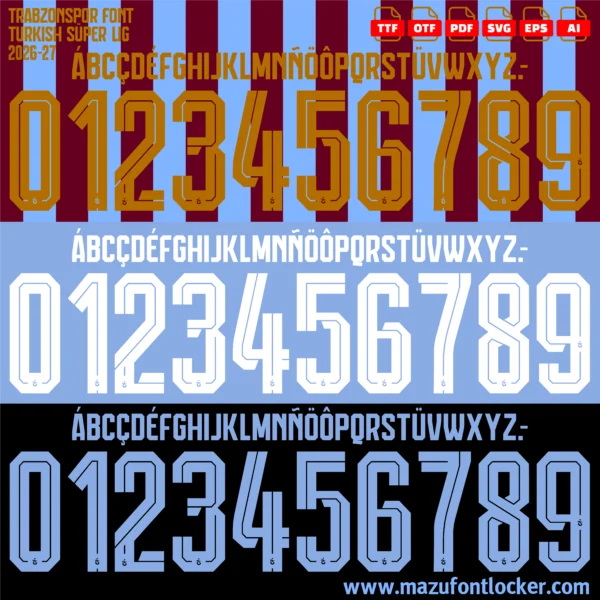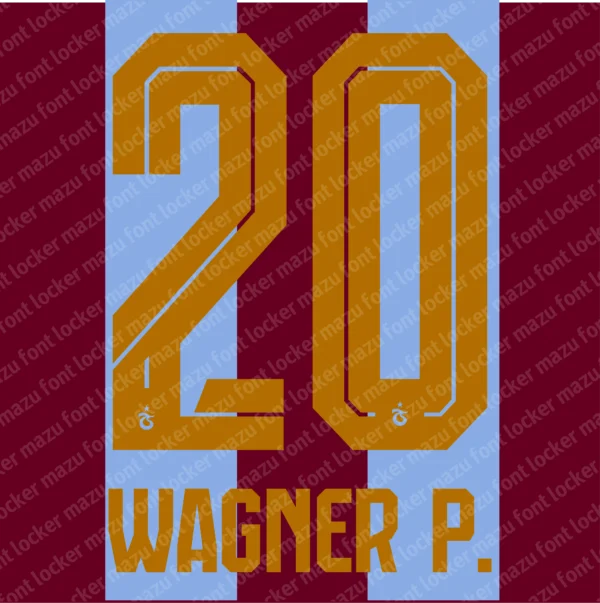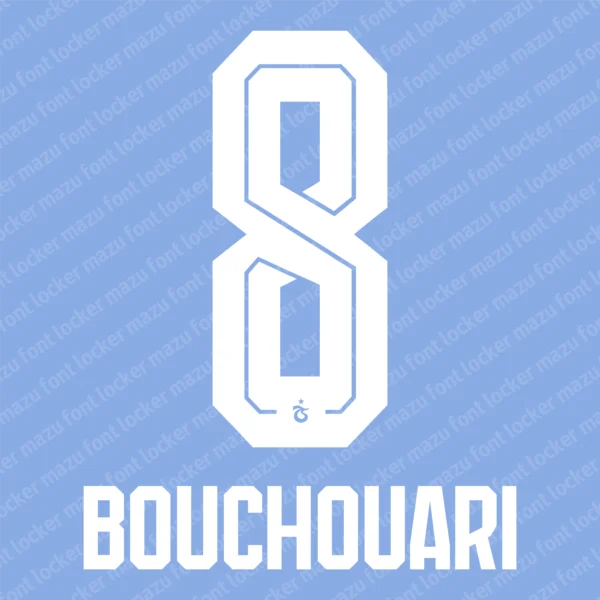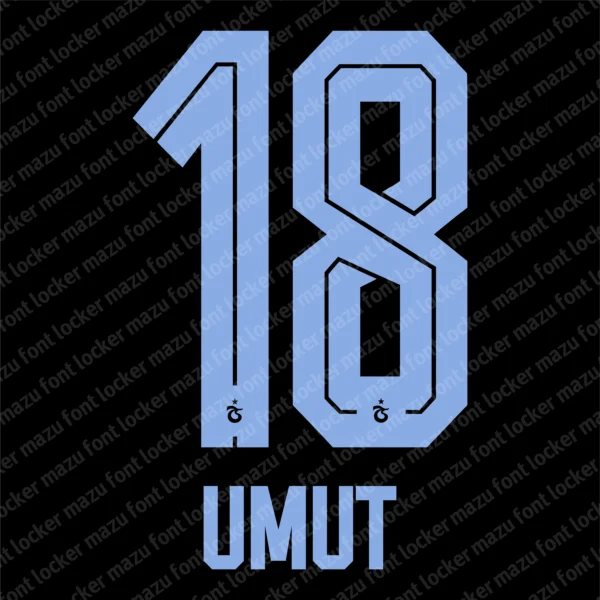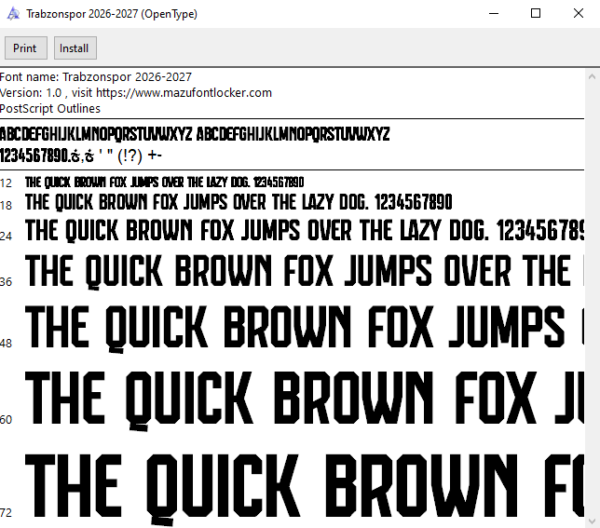
Trabzonspor 2026-2027 Font Vector – Epic Bordo-Mavi Masterpiece
This font captures the commanding, steel-edged, lightning-strike, and precision-engineered lettering that perfectly embodies Trabzonspor’s iconic club identity, proud northern Turkish & Black Sea heritage, never-back-down mentality, and raw football power — delivering unmatched authenticity, premium quality, explosive energy, and elite Süper Lig & European dominance for professional jersey mockups, dynamic football graphics, premium sports branding, passionate fan creations, and high-end design projects.
Trabzonspor 2026-2027 Font Vector – Iconic Claret & Blue Typeface
The Trabzonspor 2026-2027 Font Vector is a premium typeface that accurately recreates the official match lettering worn by Trabzonspor during the 2026-2027 season. This high-quality vector font kit captures the bold, clean, and instantly recognizable typography that perfectly complements the club’s iconic claret and blue identity.
Designed for professional designers, football enthusiasts, and passionate Trabzonspor supporters, the Trabzonspor 2026-2027 Font Vector delivers exceptional authenticity for creating realistic jersey mockups, football merchandise, social media graphics, match posters, and custom fan artwork. Every character has been carefully recreated to match the powerful and precise visual style of one of Turkey’s most passionate football clubs.
Why Choose Trabzonspor 2026-2027 Font Vector
This font stands out thanks to its precise vector construction and authentic club styling. Every letter and numeral has been meticulously recreated to match the official shirt lettering used throughout the 2026-2027 Süper Lig and cup campaigns. Whether you’re producing professional kit templates or creating eye-catching football content, the Trabzonspor 2026-2027 Font Vector delivers a genuine match-ready appearance.
The lettering featured in the Trabzonspor 2026-2027 Font Vector combines clean geometric lines with powerful modern proportions. The result is a premium and highly readable typeface that reflects Trabzonspor’s fighting spirit, Black Sea intensity, and passionate fanbase in Turkish football.
The Trabzonspor 2026-2027 Font Vector is an independently designed typeface package inspired by the official shirt lettering for the 2026-2027 season. It has been carefully recreated for football enthusiasts, graphic designers, collectors, and creators producing custom jersey concepts, football artwork, and fan-made projects.